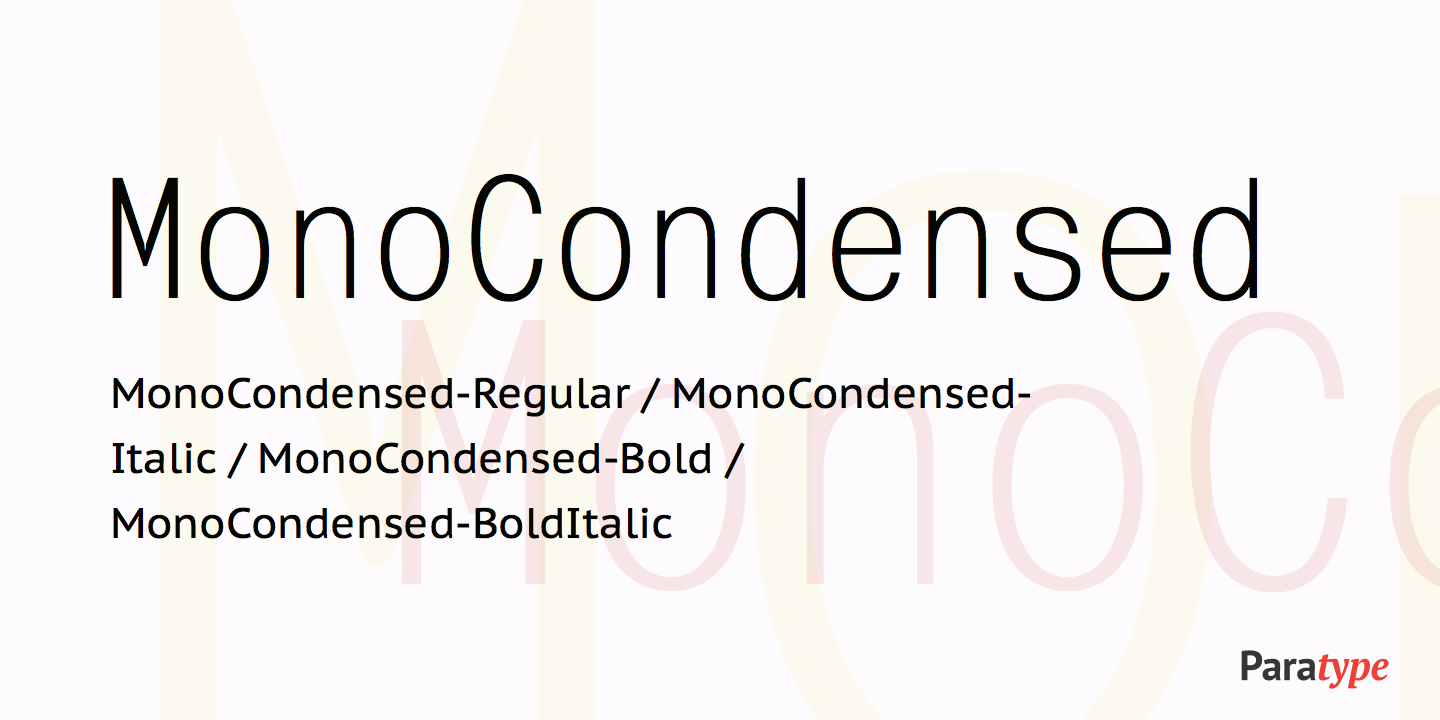
Mono Condensed Font is perfect for space-efficient coding interfaces, terminal emulator applications, data table displays, technical documentation, programming IDE environments, command-line tools, system monitoring dashboards, and compact digital displays. This efficiently optimized typeface excels in projects requiring maximum information density and monospaced reliability where space conservation meets exceptional code readability.
What makes Mono Condensed Font exciting is its perfect balance of monospaced precision with condensed efficiency, creating maximum character density without sacrificing the alignment crucial for programming and technical applications. The font features consistently spaced characters with compressed proportions and optimized details that maintain perfect code alignment while fitting significantly more information in constrained spaces. Its space-efficient character makes it ideal for developers and technical professionals working with limited screen real estate and high-density information displays.
Mono Condensed Font family includes multiple weights and condensed variations that enhance its efficiency appeal while providing design flexibility for technical and programming applications. The family typically offers light, regular, medium, and bold weights, along with ultra-condensed versions, programming ligatures, and technical symbols that complement coding and data visualization design themes perfectly.
Whether you're developing compact code editor interfaces, creating data-dense dashboard displays, or designing technical documentation systems, Mono Condensed Font Free Download provides the perfect space-efficient solution for projects requiring maximum information density and monospaced reliability. This font's technical precision and space optimization make it essential for development teams and data professionals working with constrained display environments.
The efficiently engineered letterforms and condensed proportions of Mono Condensed Font ensure optimal space utilization while maintaining perfect monospaced alignment and exceptional readability across all technical applications. Its distinctive compressed personality and technical efficiency create professional impressions that resonate with developers and data analysts. Download Mono Condensed Font today and maximize information density in your technical projects with this space-optimized typeface that perfectly balances monospaced functionality with efficient space utilization for superior coding and data display applications.